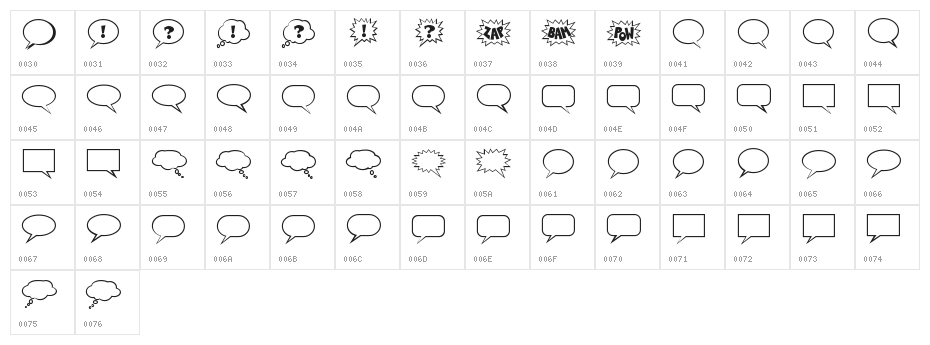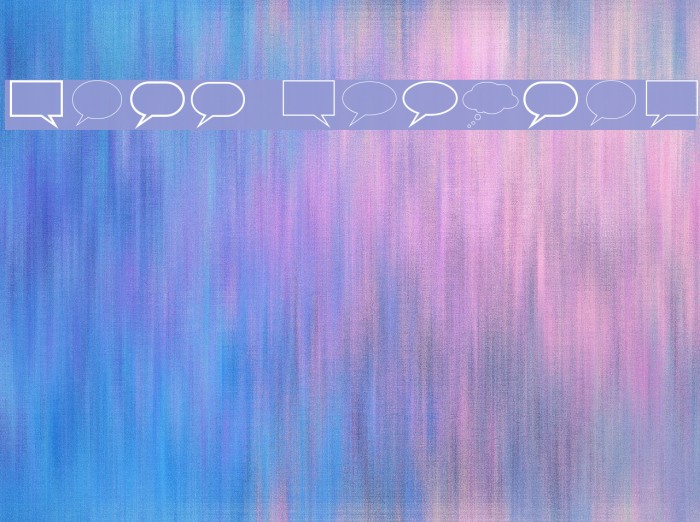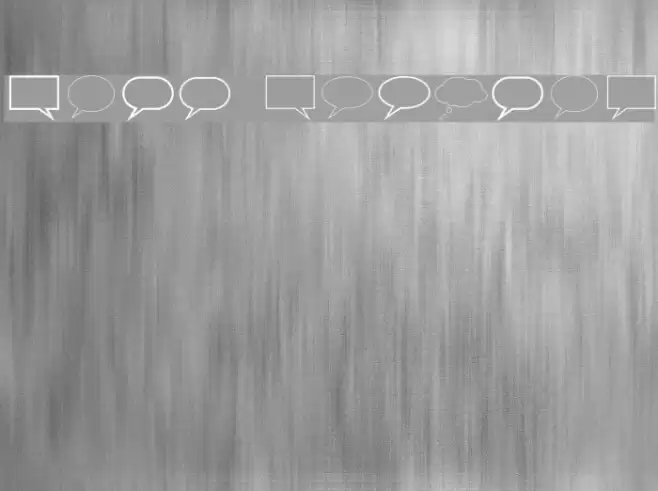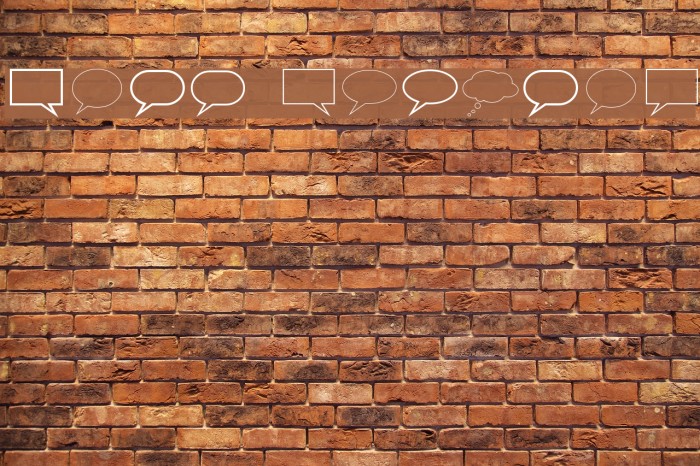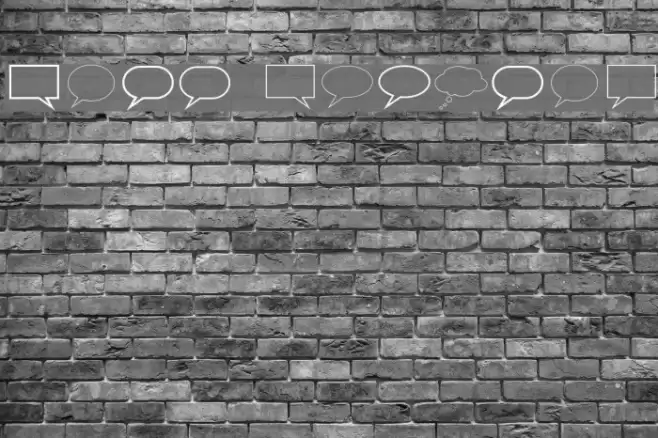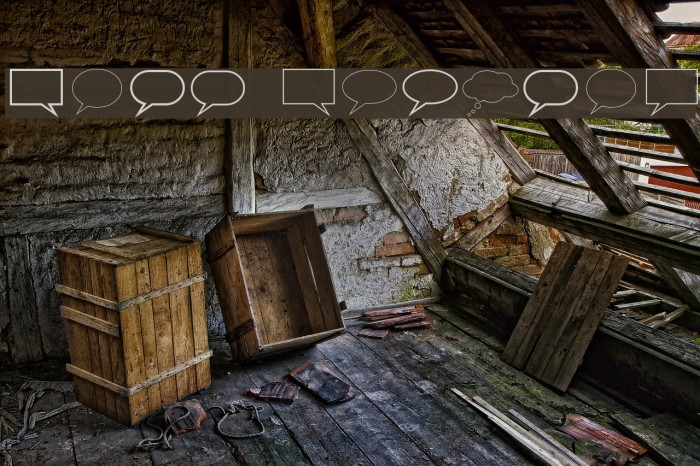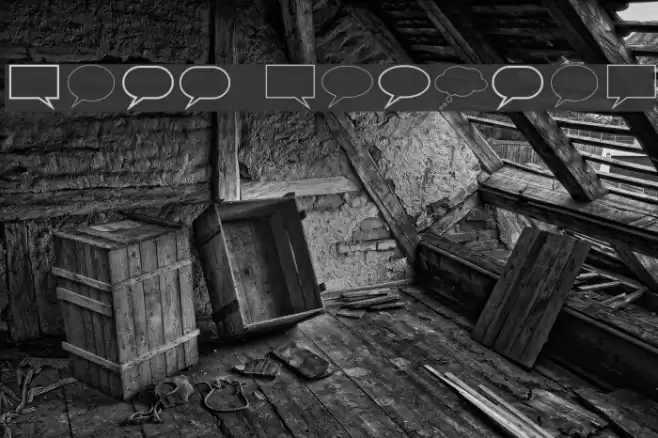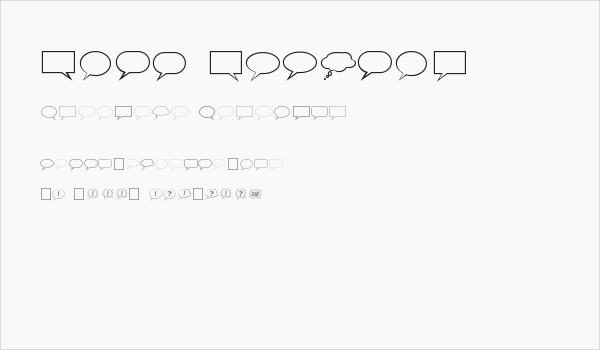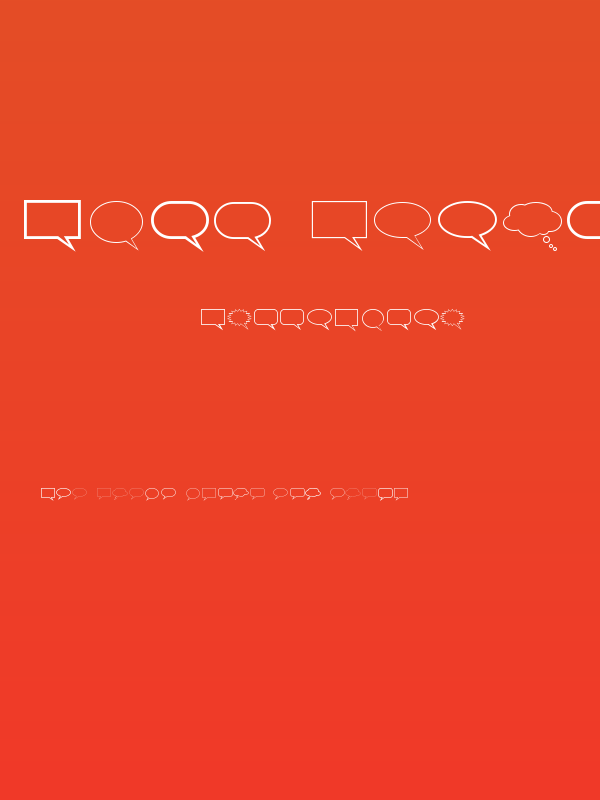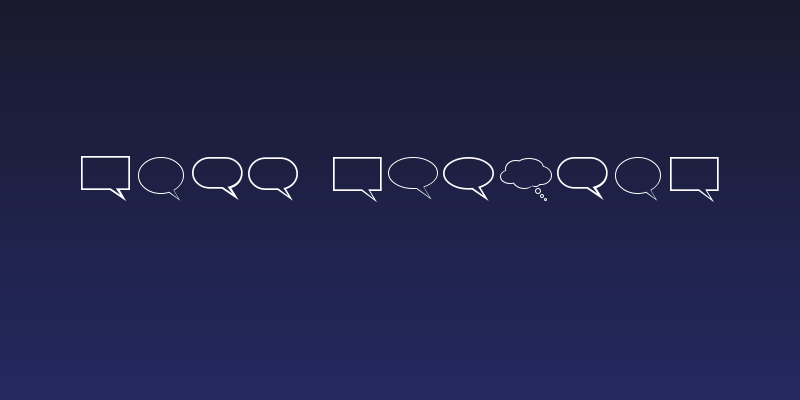
Talk Regular Font
| Overall Style | Playful, Comic, Decorative |
| Use Case | Graphic elements for comics, speech bubbles, and visual storytelling. |
| Proposed Projects | Comic books, graphic novels, children's books, playful posters, educational materials, stickers, and digital comics. |